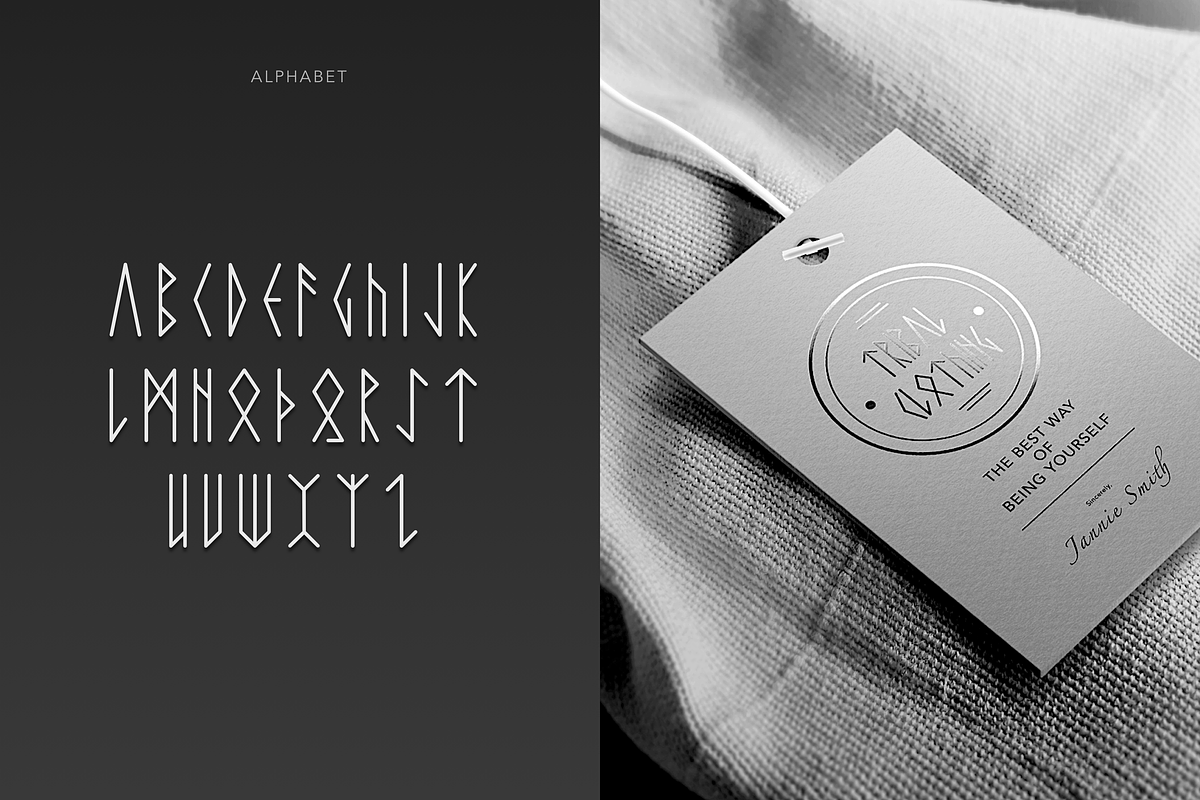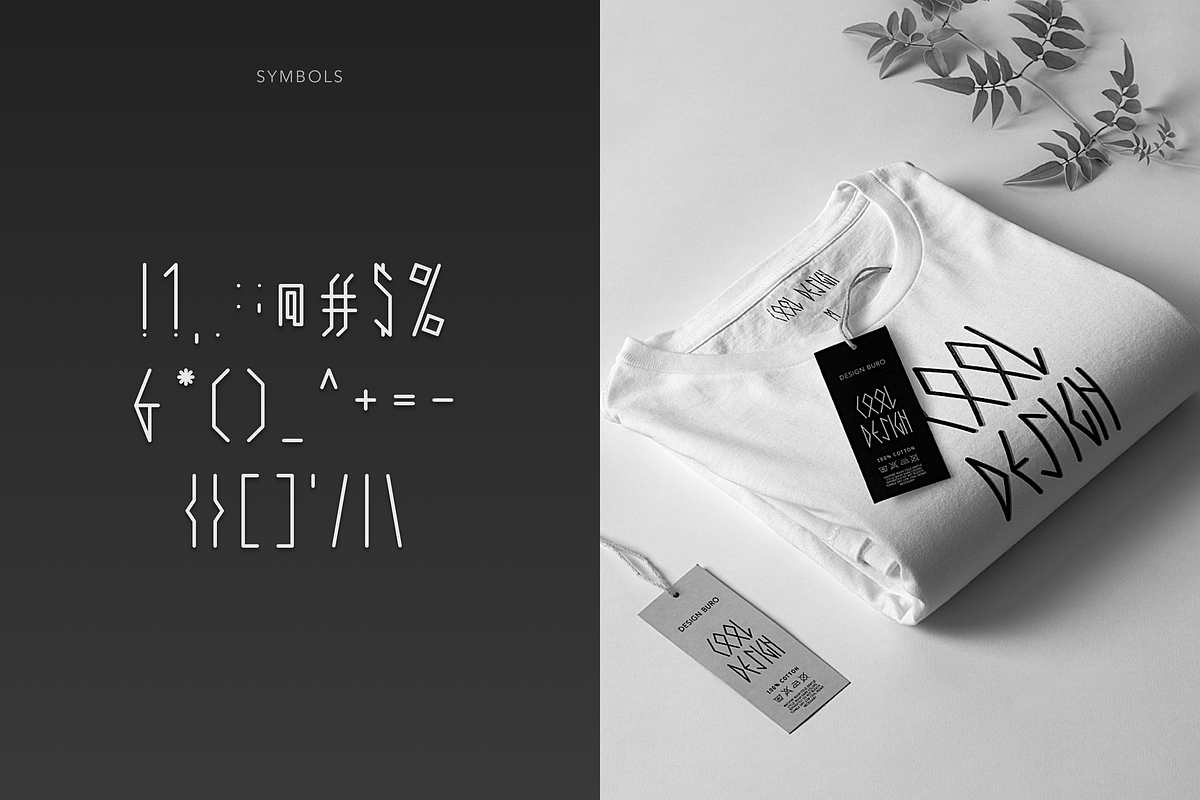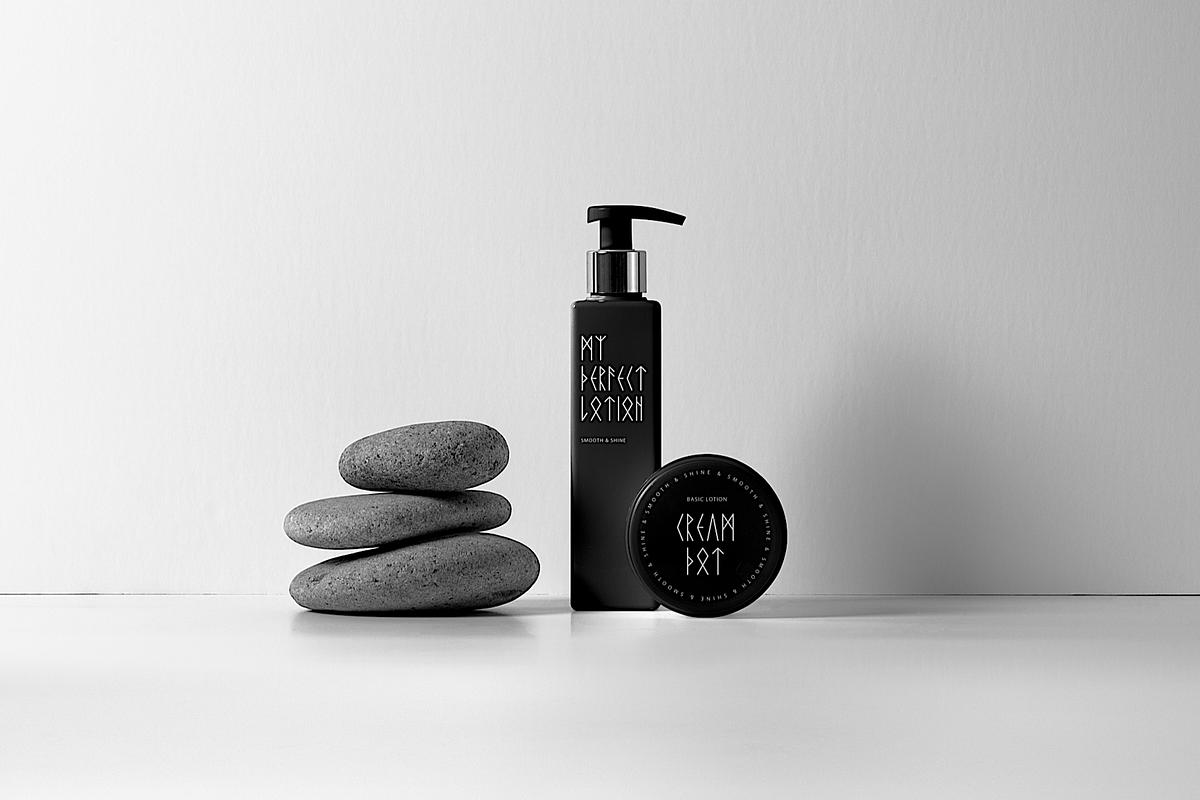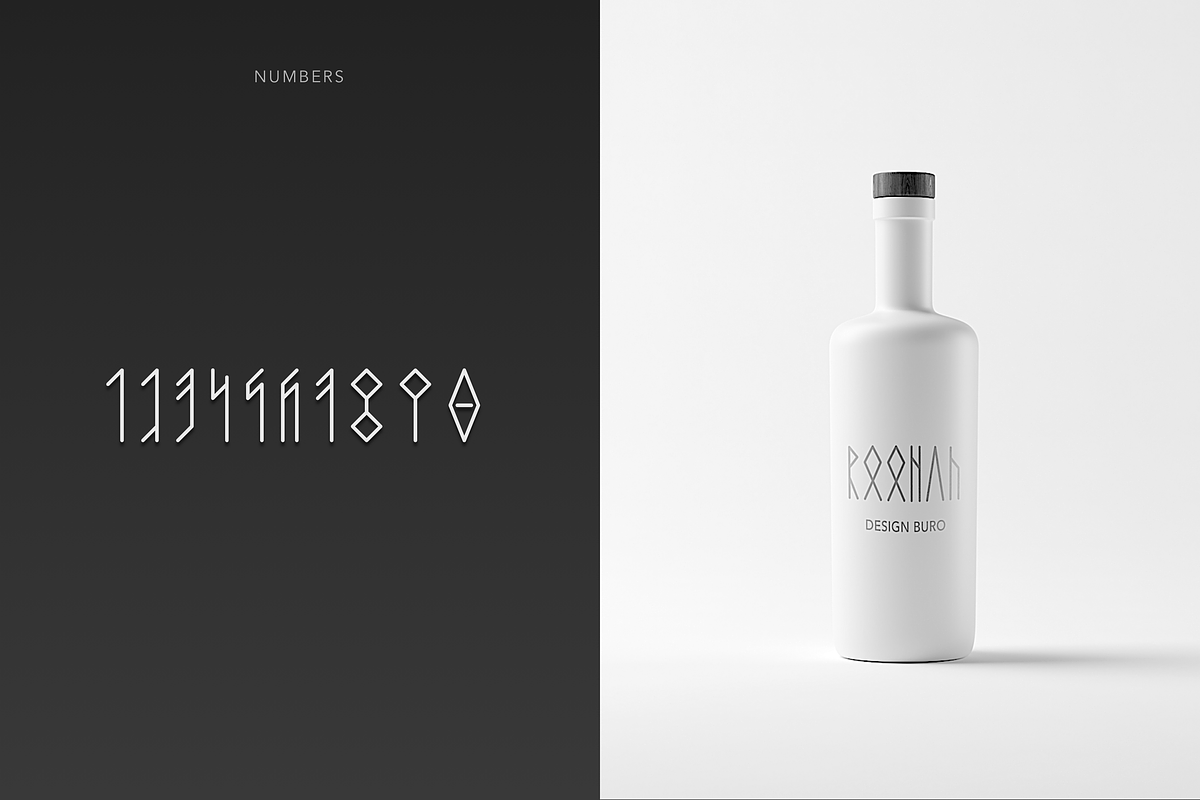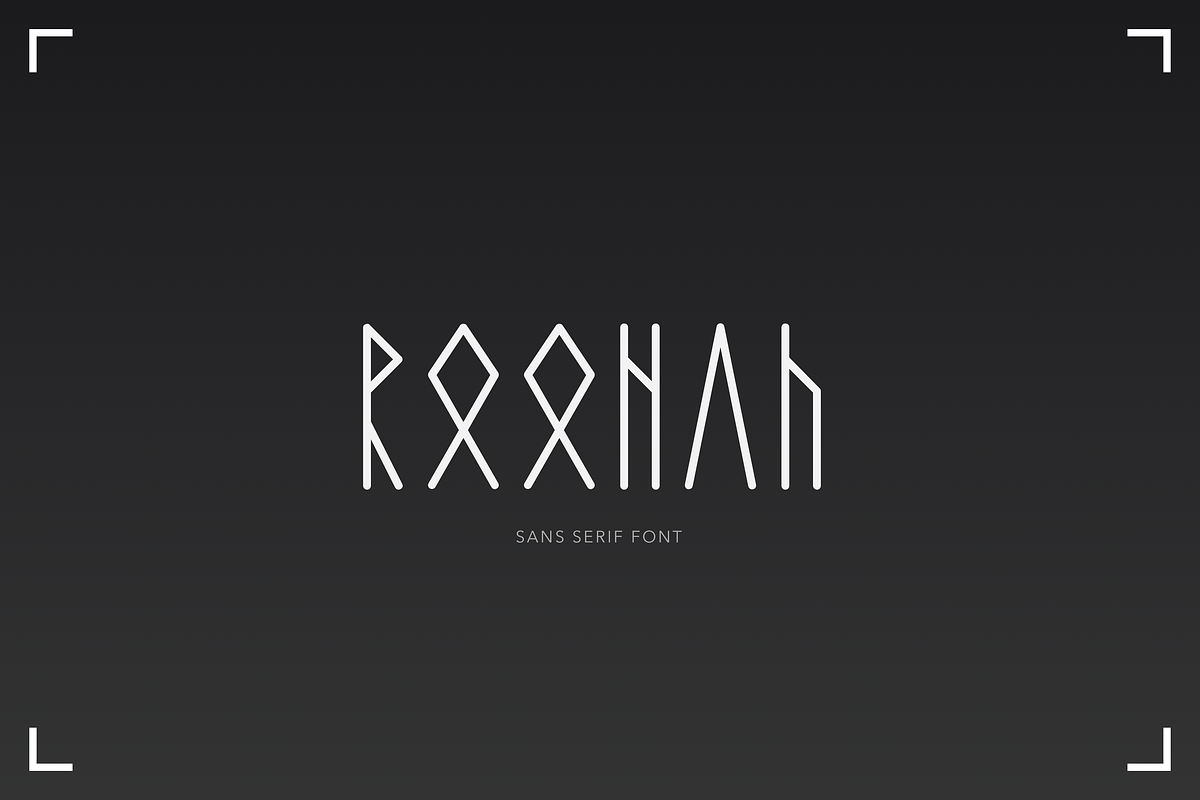
Roonah - Sans Serif Font
Roohan is a typeface with a cold Nordic taste, includes full set of gorgeous uppercase letters, numerals, punctuation, alternate characters, multilingual characters support and symbols.
Roonah is very suitable to give elegance and uniqueness to your Packaging design, Product design, as well as Magazines, Books, thematic Posters and Apparel.
Inspired by Nordic oriental traditions.